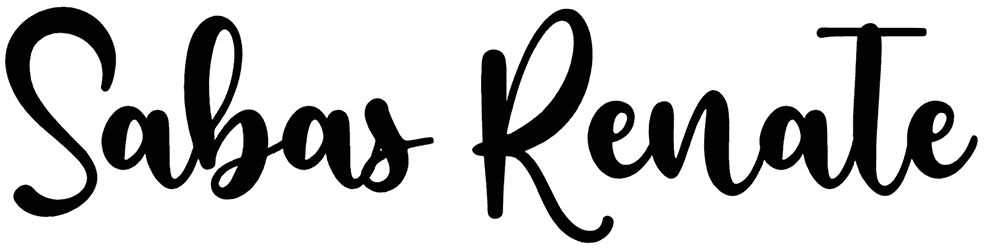
Sabas Renate Font
Take advantage of our new script font and make your design superior to others. Sabas Renate offers a playful, friendly, and handmade mood. It has a full set of characters but might seem illegible because of its cursive structure, especially in a long text. You can use this cursive font for apparel printing, product packaging, wedding or special events, movie posters, and book covers.